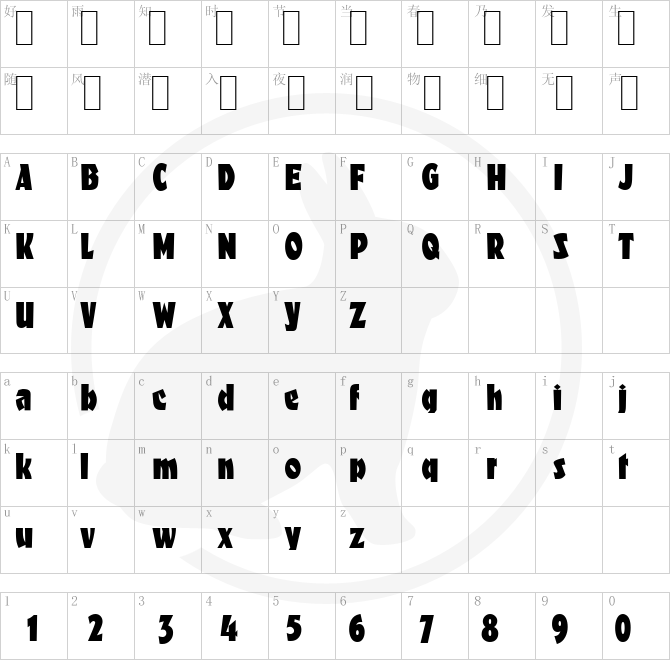
- Font Name:F650-Deco
F650-Deco-Regular.ttf is a very beautiful artistic font, F650-Deco-Regular.ttf is widely used in the design and printing of various books and pictures,F650-Deco-Regular.ttf has a strong visual impact,F650-Deco-Regular.ttf is a commonly used font in newspapers, magazines and books, and is used in posters, e-commerce Poster design, store design, logo design, font design and other fields.F650-Deco-Regular.